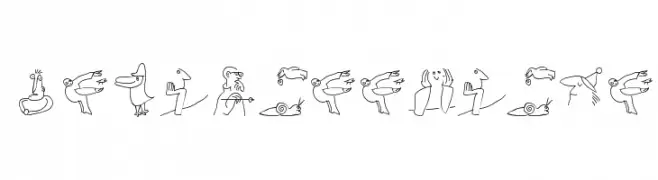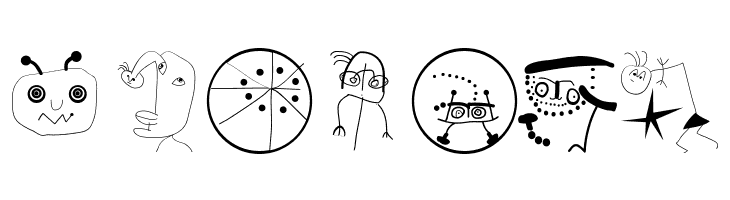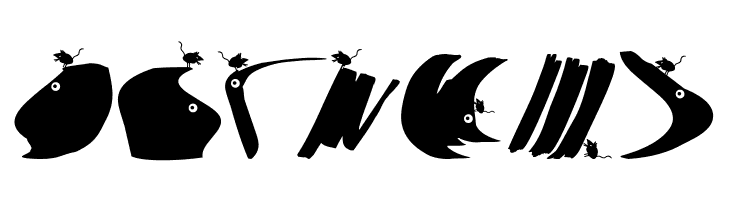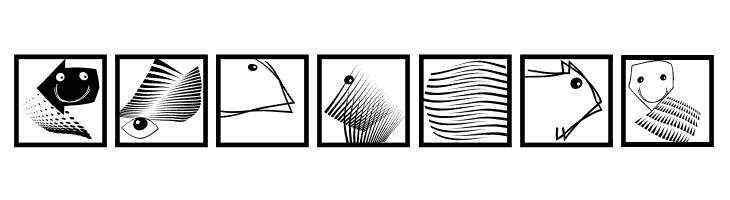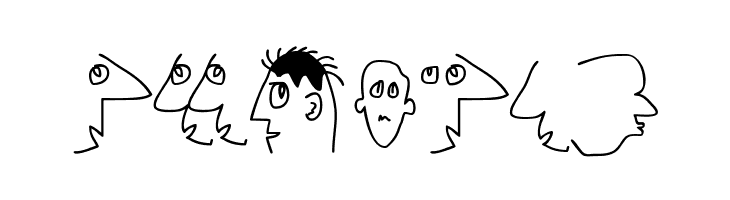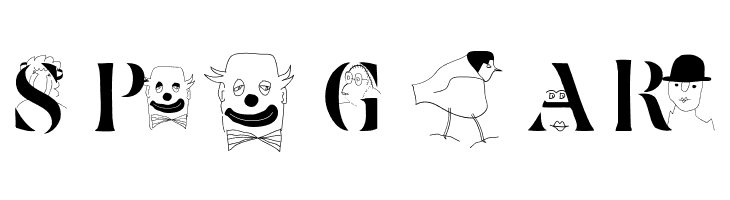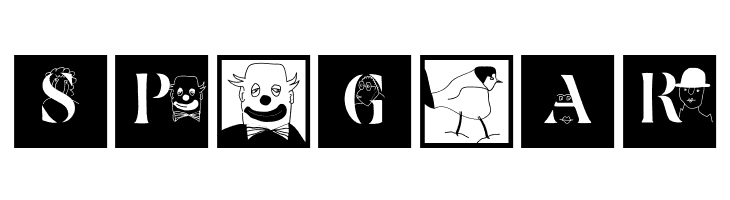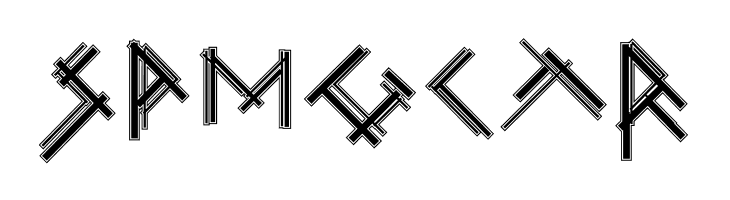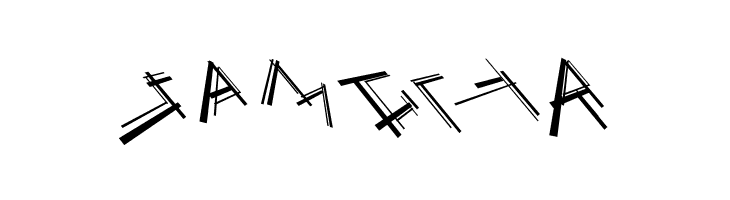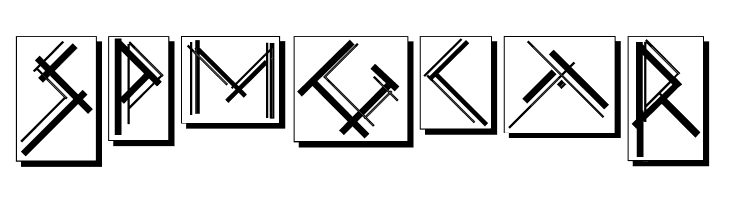
• MouseImprovisations
A quirky, hand-drawn font made of abstract faces.
• MouseLearnMiro
Playful, abstract illustrated font with unique doodle-style characters.
• MouseScribbles
A whimsical font featuring cartoonish illustrations within each character.
• MouseScribblesKTwo
A whimsical display font with playful illustrations in each character.
• MouseStrokes3D
A 3D abstract font with overlapping angular lines and a dynamic, edgy style.
• MouseStrokesCont
A geometric, futuristic font with intersecting lines and sharp angles.
• MouseStrokesInverseShadow
A modern, geometric font with inverse shadow effects and bold lines.
• MouseToonsTwo
A quirky, hand-drawn cartoon character font.
• MouseTraps
A bold, abstract font with dynamic, splatter-like characters.
• MouseVectorarts
Abstract, illustrative font with unique vector art for each character.